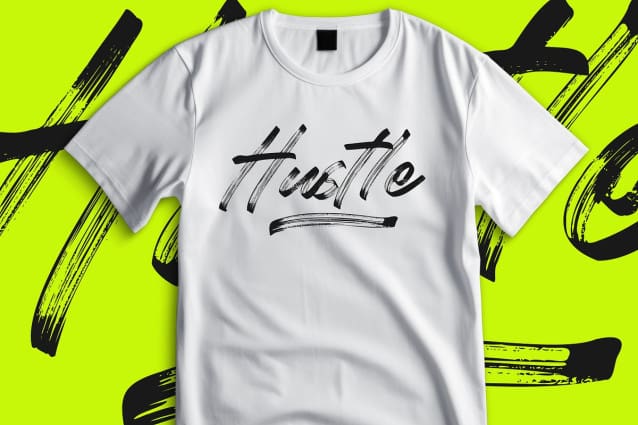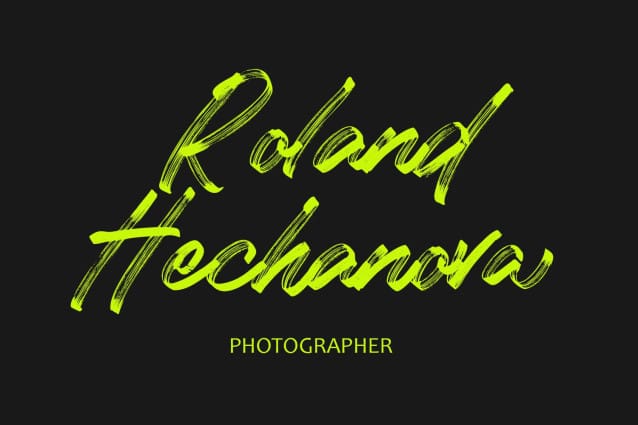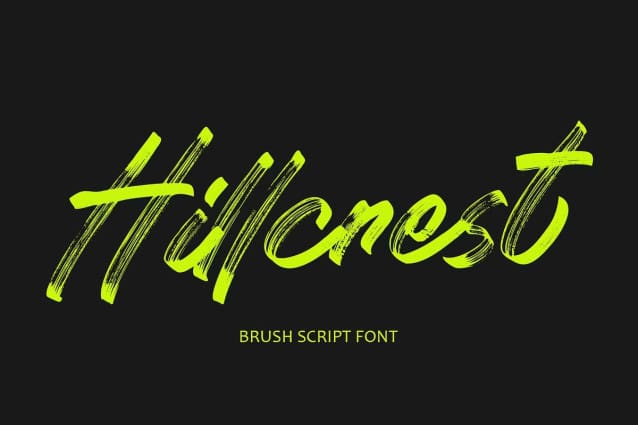
Hillcrest Brush Font
Hillcrest brush font offers a blend of casual elegance and artistic flair, making it a versatile choice for a wide range of design projects. Here’s an explanation of its key features:
Handcrafted Brush Strokes: “Hillcrest Brush” replicates the look of hand-painted brush strokes, with each character bearing the distinctive texture and fluidity characteristic of brush script fonts. The irregularities in the strokes add a touch of authenticity and warmth to the typography.
Expressive Typography: With its dynamic and fluid letterforms, “Hillcrest Brush” allows designers to create expressive typographic compositions that convey a sense of energy and movement. The brush script style lends a spontaneous and artistic quality to the text, making it perfect for designs that require a personal touch.
Versatility: Despite its casual appearance, “Hillcrest Brush” is remarkably versatile and can be used in various design contexts. It is well-suited for anything from branding materials and packaging to social media graphics and invitations, adding a touch of creativity and personality to any project.
Customization Options: Some brush script fonts, including “Hillcrest,” may offer additional features such as alternate characters, ligatures, and swashes. These options allow designers to customize the appearance of the text and create unique typographic compositions that suit their specific needs.
Readability: While brush script fonts tend to prioritize style over readability, “Hillcrest” strikes a balance between the two, ensuring that text remains legible even at smaller sizes. The carefully crafted letterforms and spacing contribute to clear and easy-to-read typography.
Artistic Appeal: “Hillcrest” exudes an artistic charm that adds character and personality to any design. Whether used for headlines, logos, or decorative elements, the font’s expressive brush strokes make a bold statement and capture the viewer’s attention.
Overall, the “Hillcrest” brush script font offers a perfect blend of artistic flair, versatility, and readability. Its handcrafted brush strokes and expressive typography make it an excellent choice for designers looking to infuse their projects with creativity and personality.